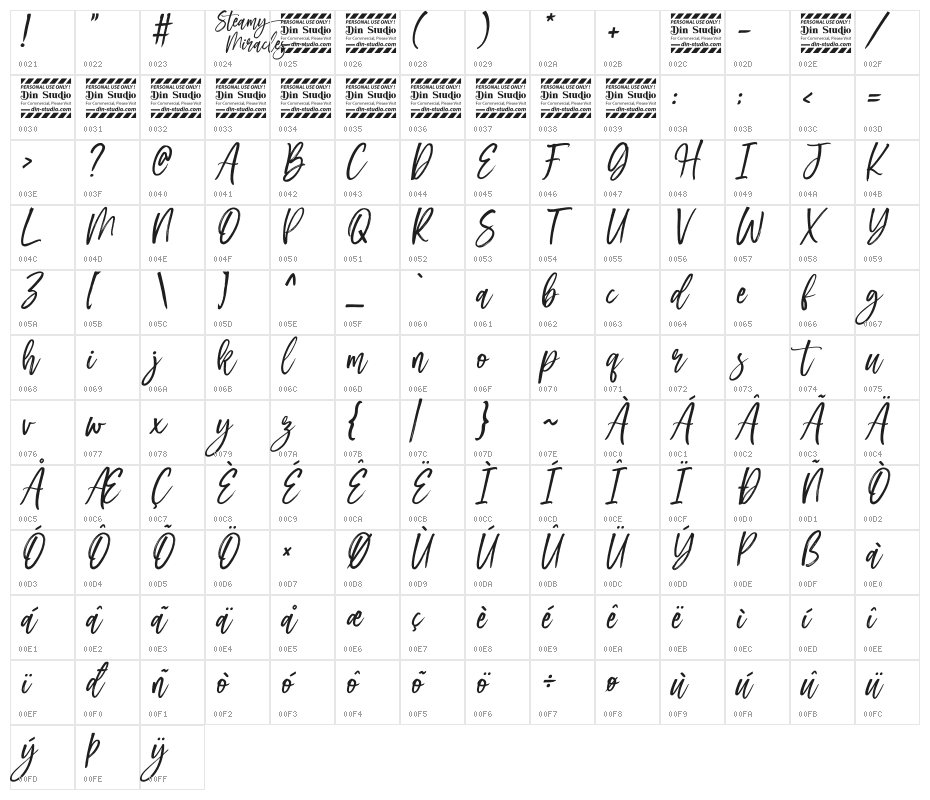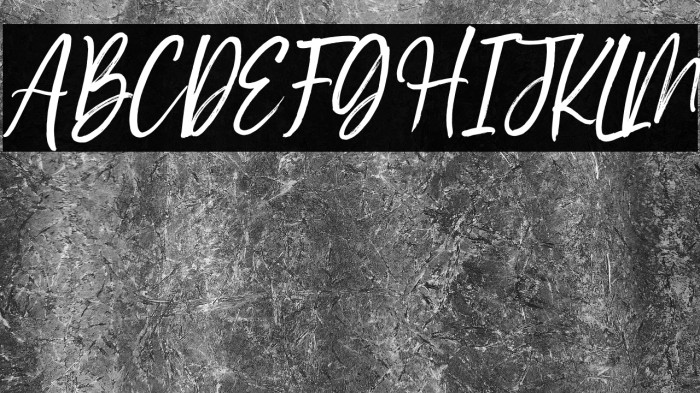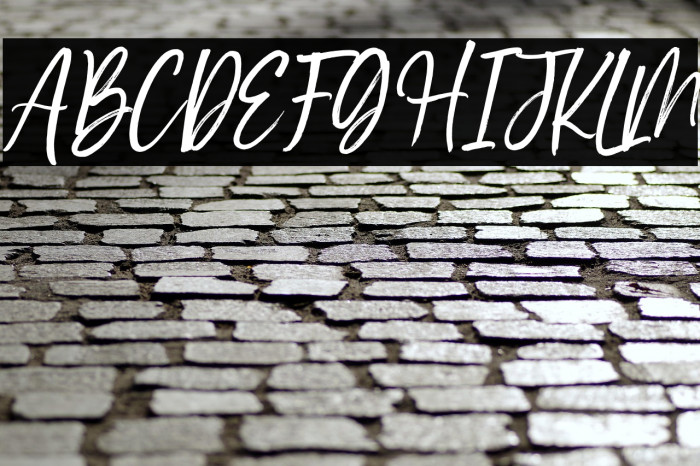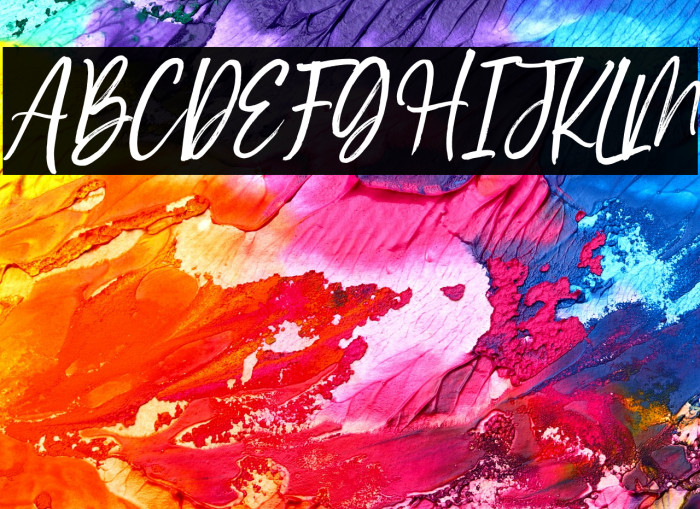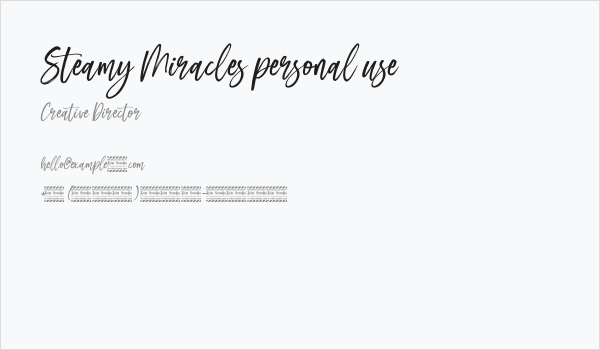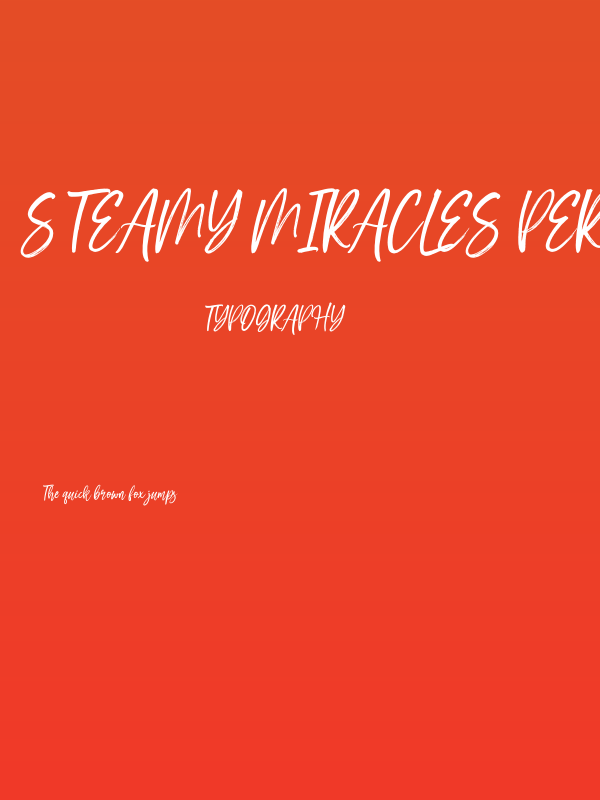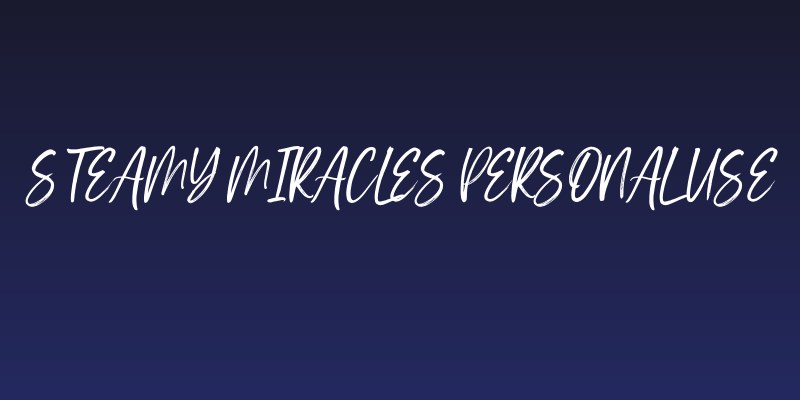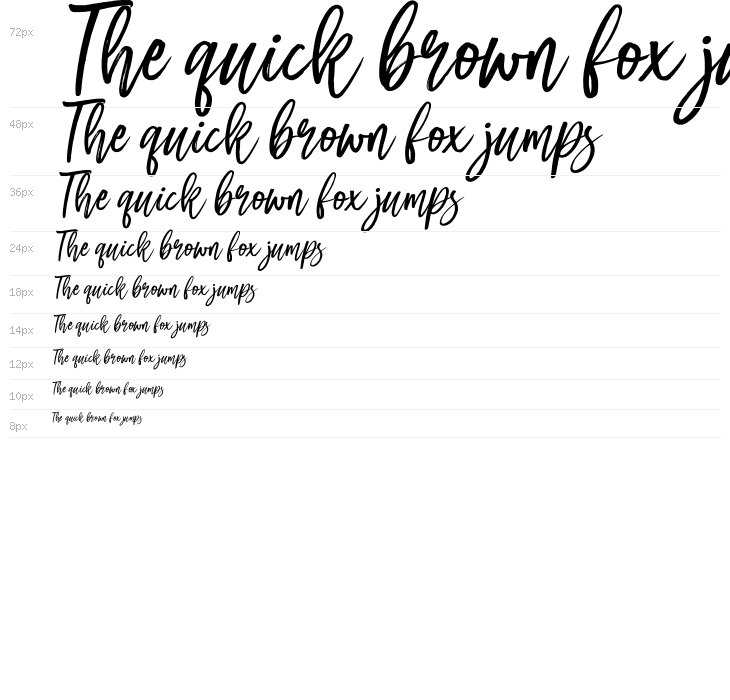
Steamy Miracles personal use Font
Steamy Miracles personal use Description
This font exudes a lively and dynamic handwritten style, characterized by its fluid and expressive strokes. The letters are crafted with a brush-like appearance, giving them a sense of movement and energy. The uppercase and lowercase letters maintain a consistent style, with a slight slant that adds to the casual and informal feel. The numerals and special characters are designed to match the overall aesthetic, ensuring a cohesive look across all text elements. The font's playful and artistic nature makes it ideal for creative projects that require a personal touch.
| Proposed Projects | Ideal for greeting cards, invitations, branding, and social media graphics. |